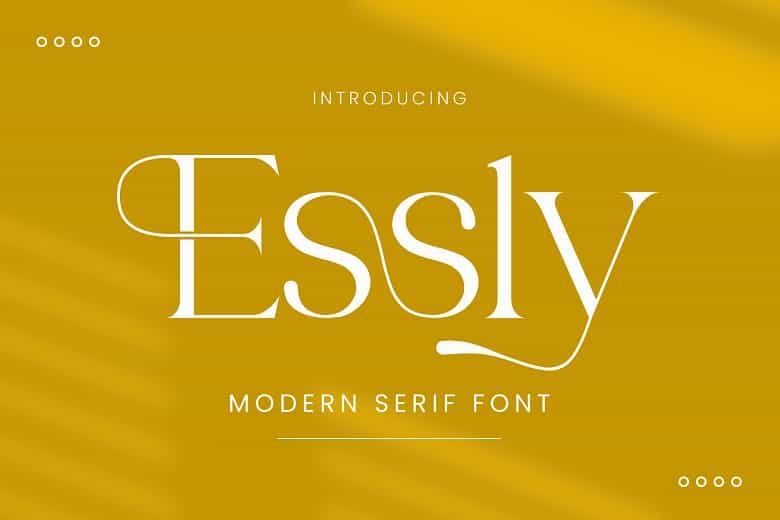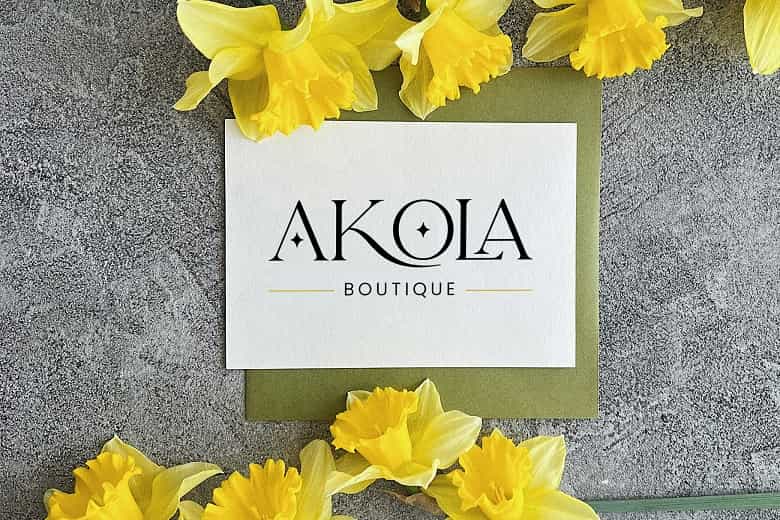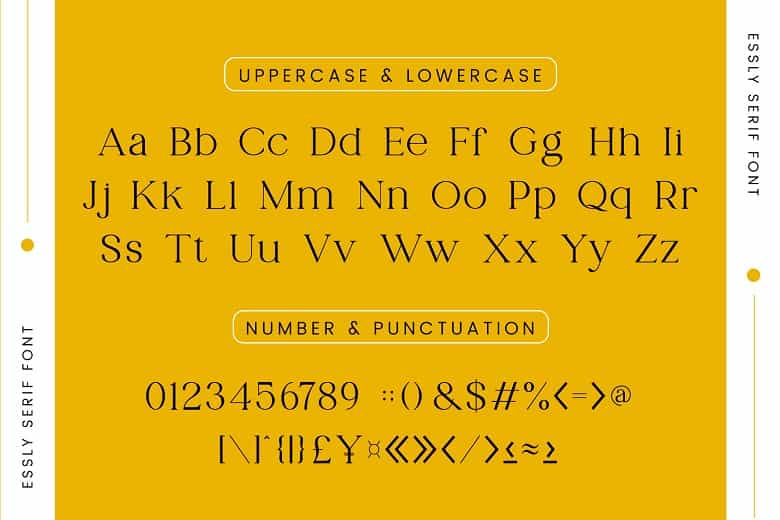
Essly is characterized by balance, smooth lines, elegance, and modern style of the serif type. He is a man of beautiful character. It complements with the invitation cards, corporate logos, movie titles and names, business cards, book titles and names, brand names and many other designs.